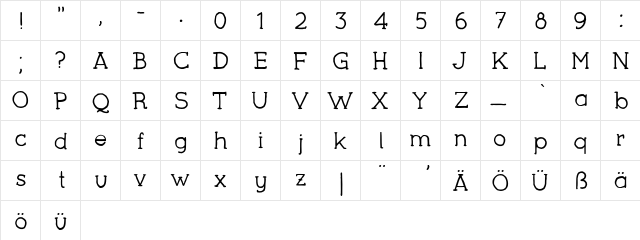
YAA Type FREE Regular
| Foundry | Lukas Bischoff |
| Designer | Lukas Bischoff |
Design Context for YAA Type FREE Typeface
YAA Type FREE is a composed and adaptable typeface that performs quietly and consistently across a wide range of design contexts.